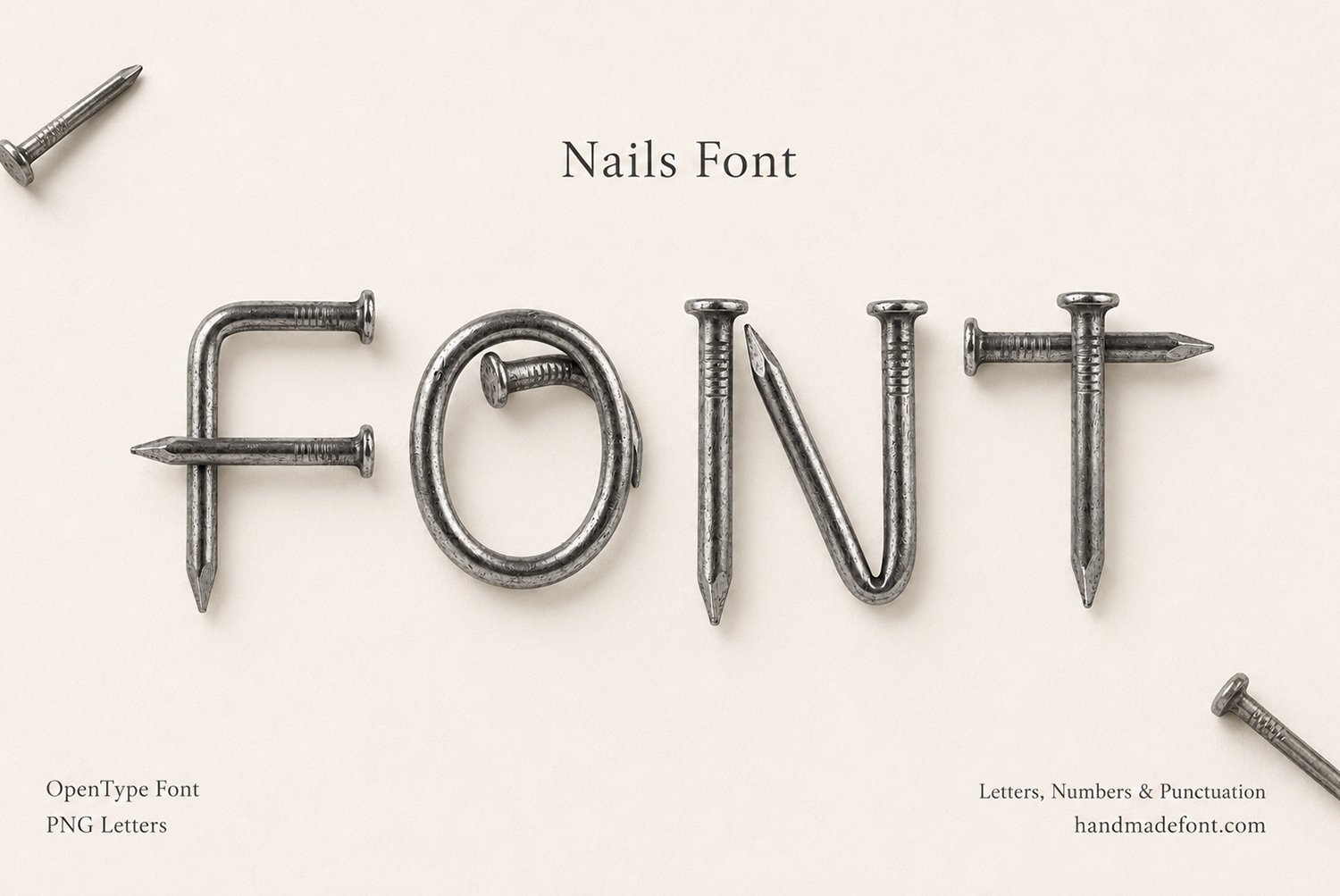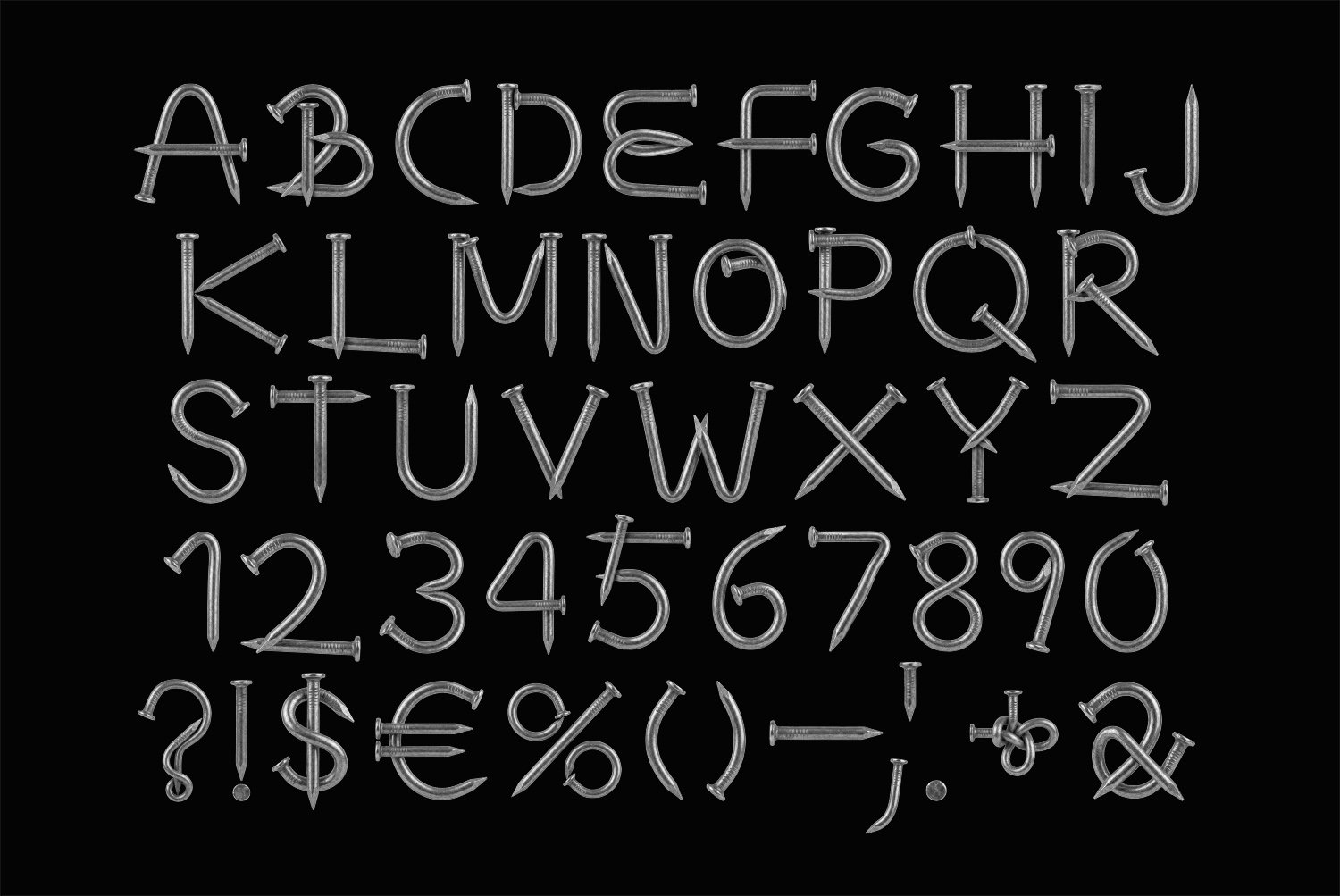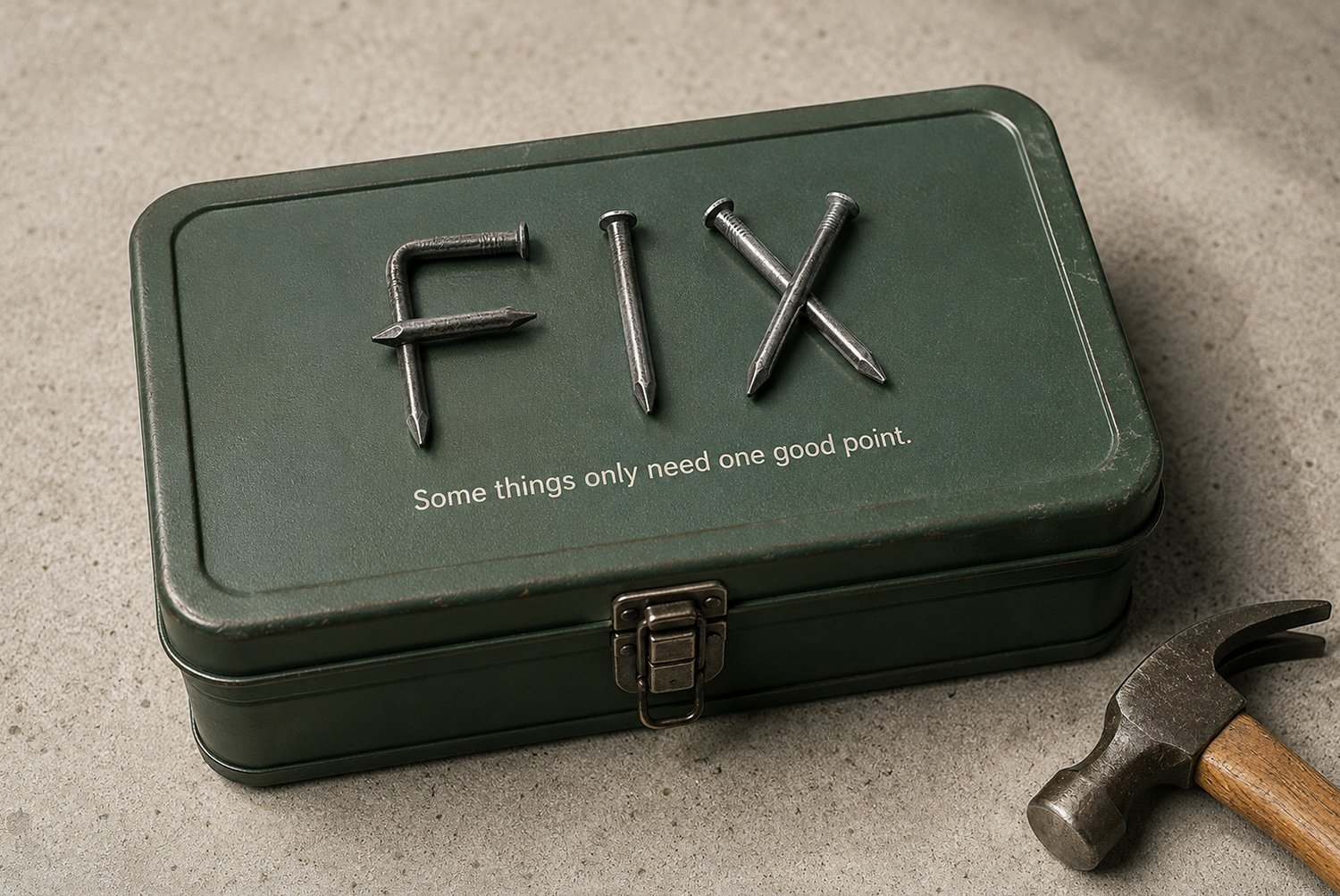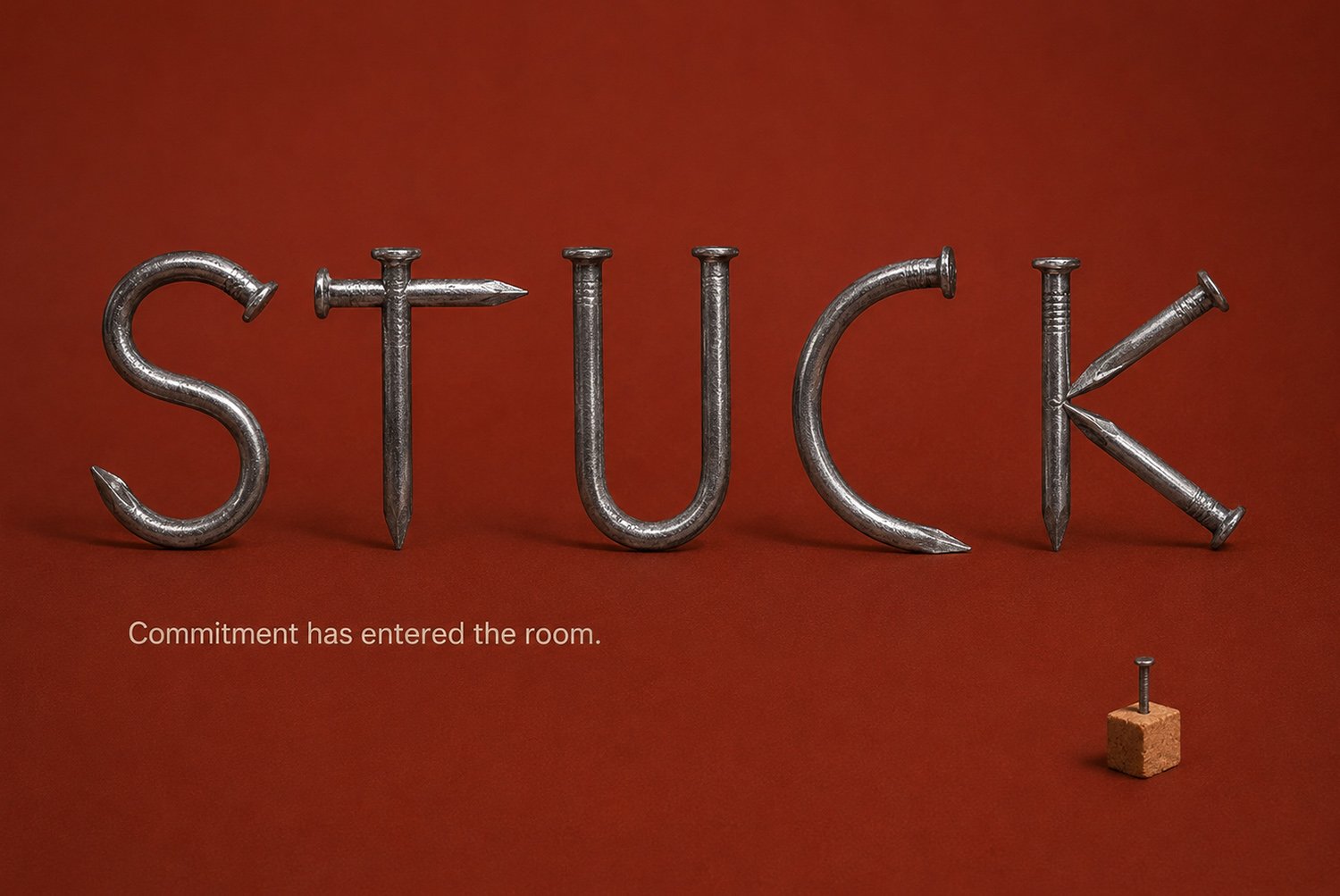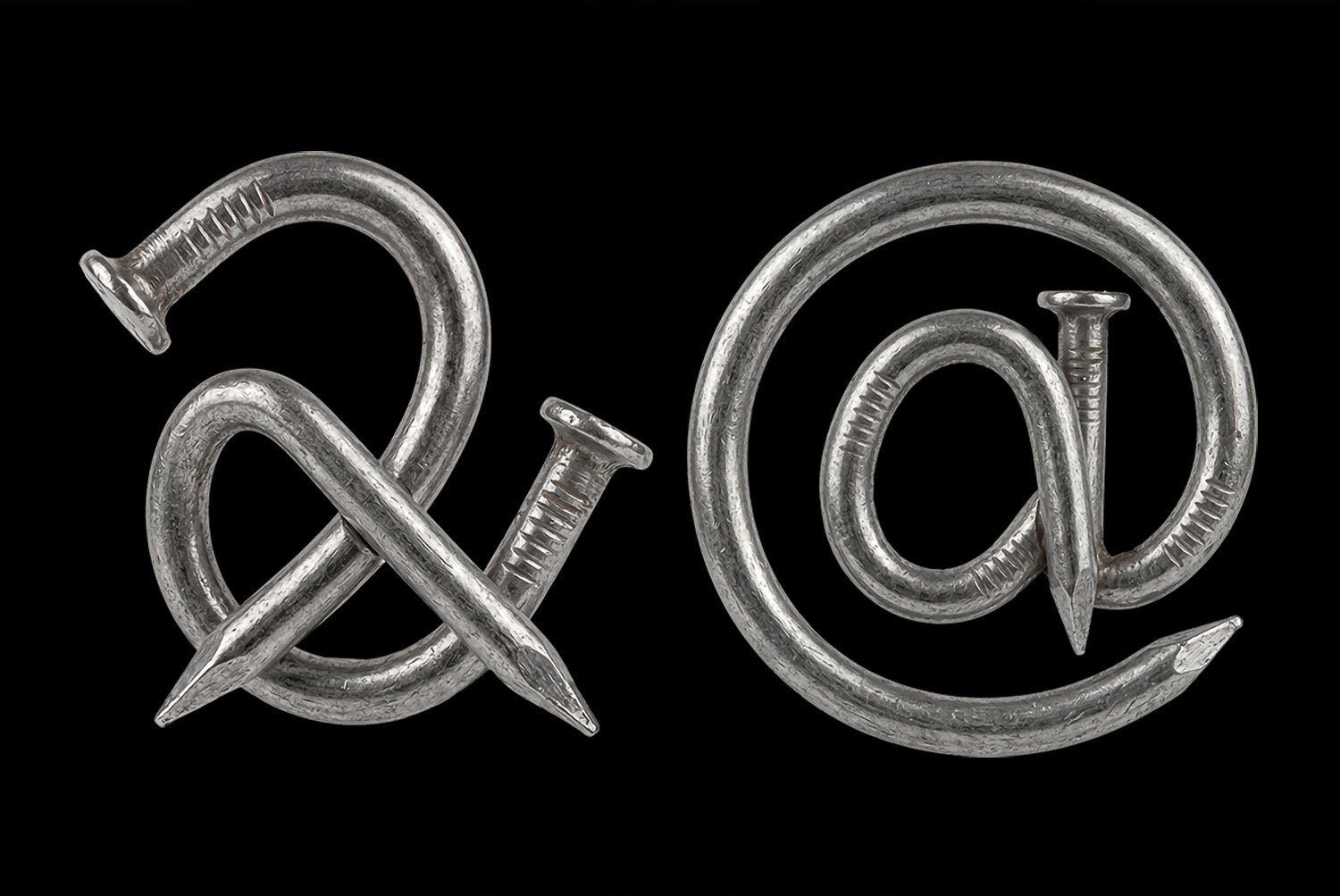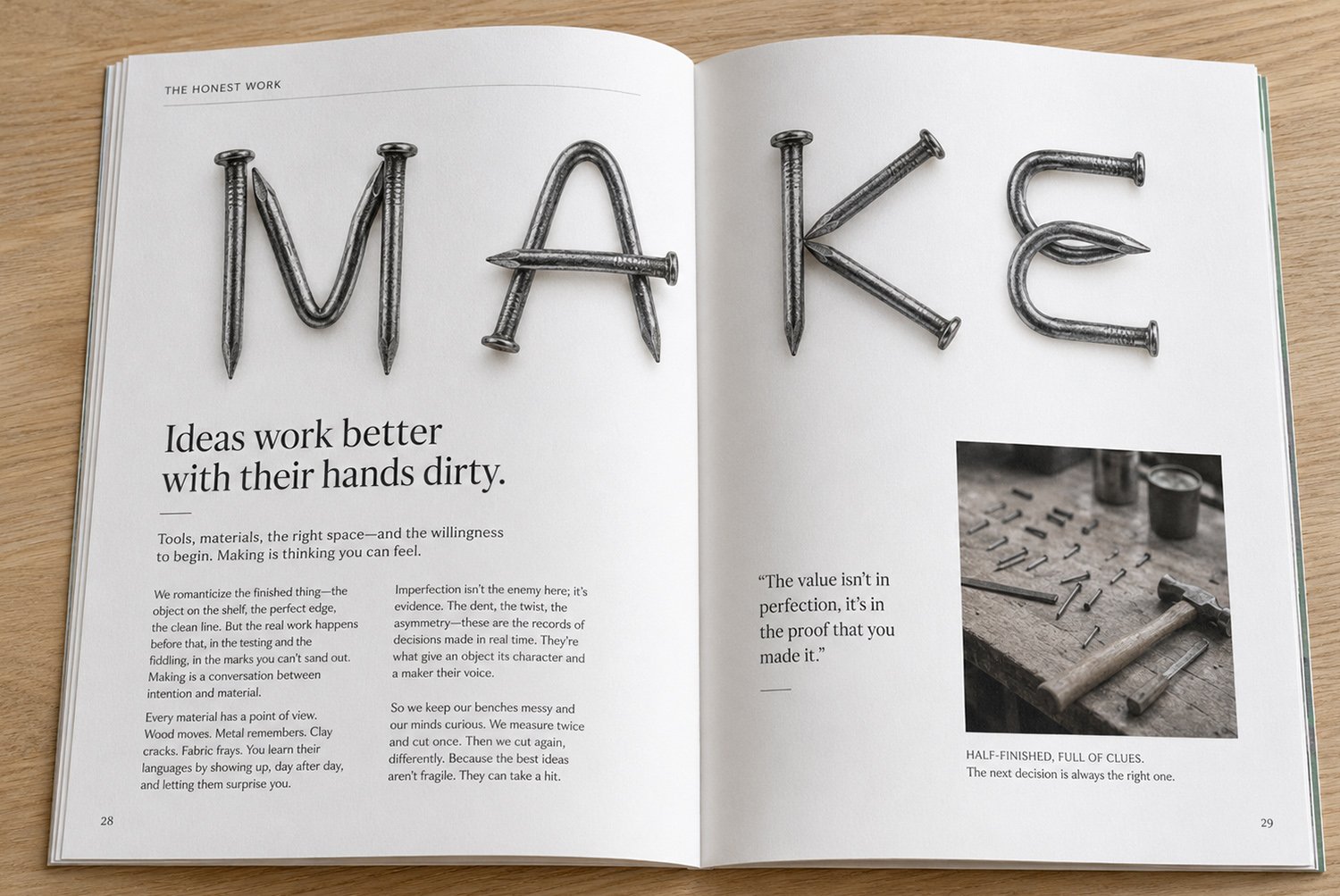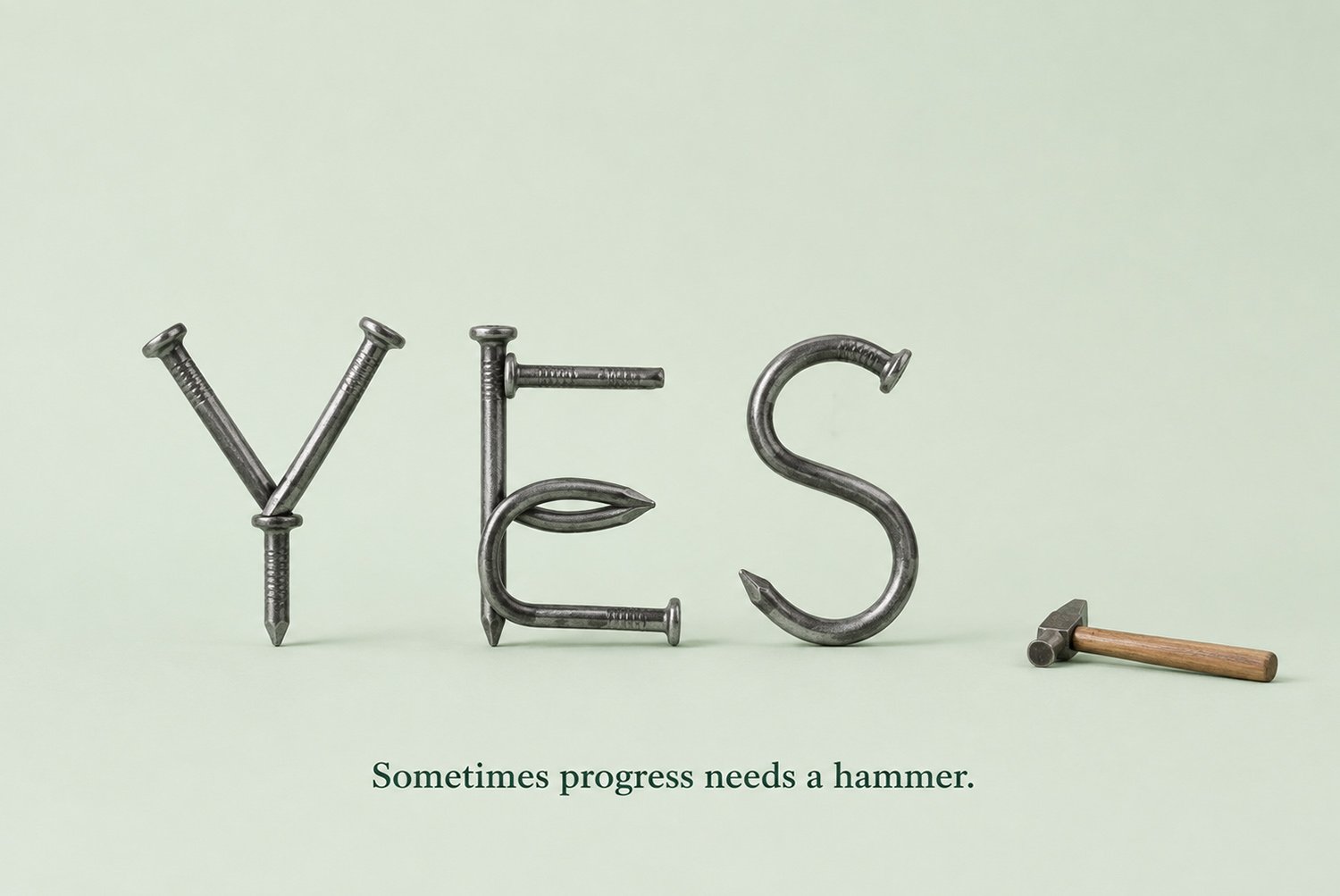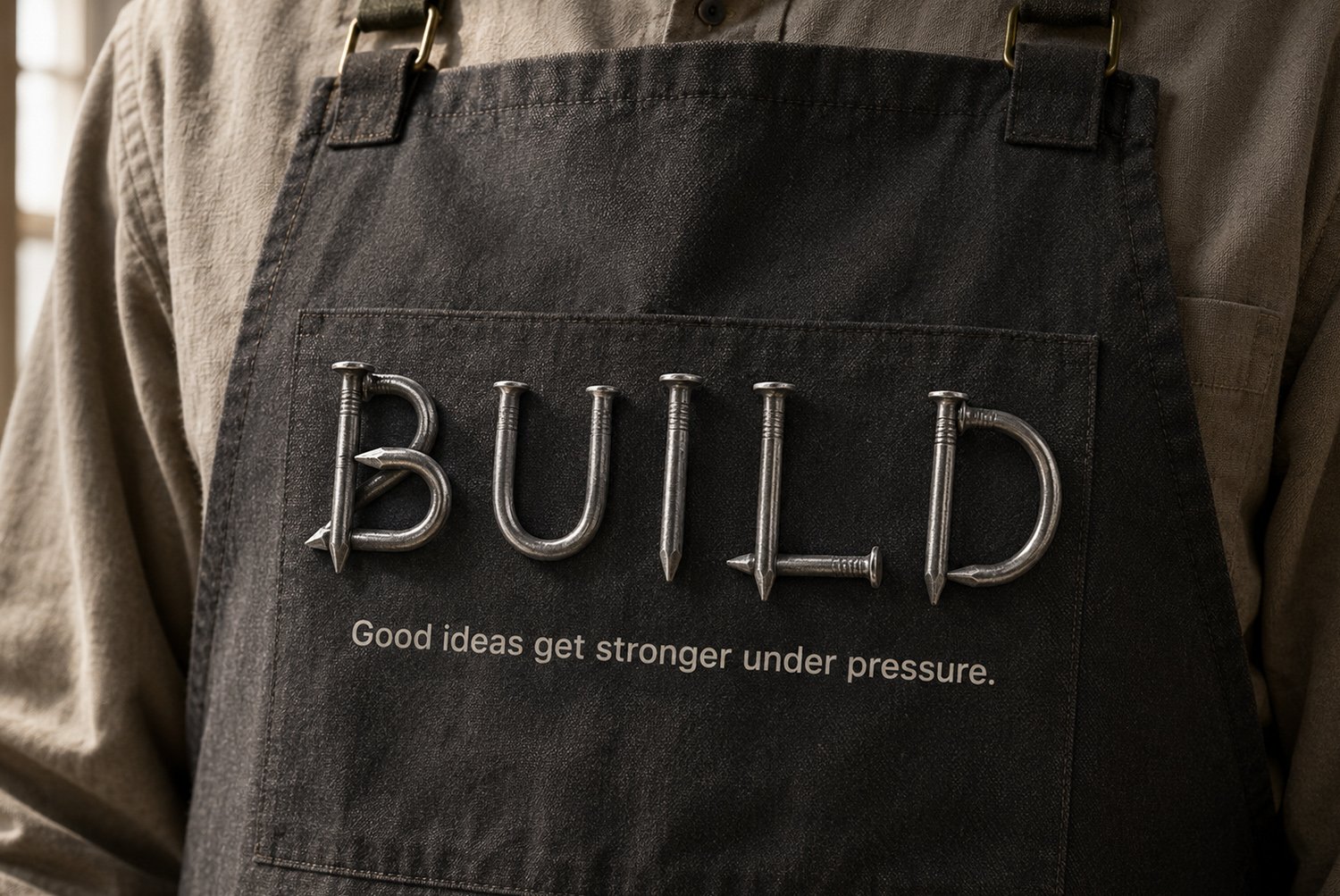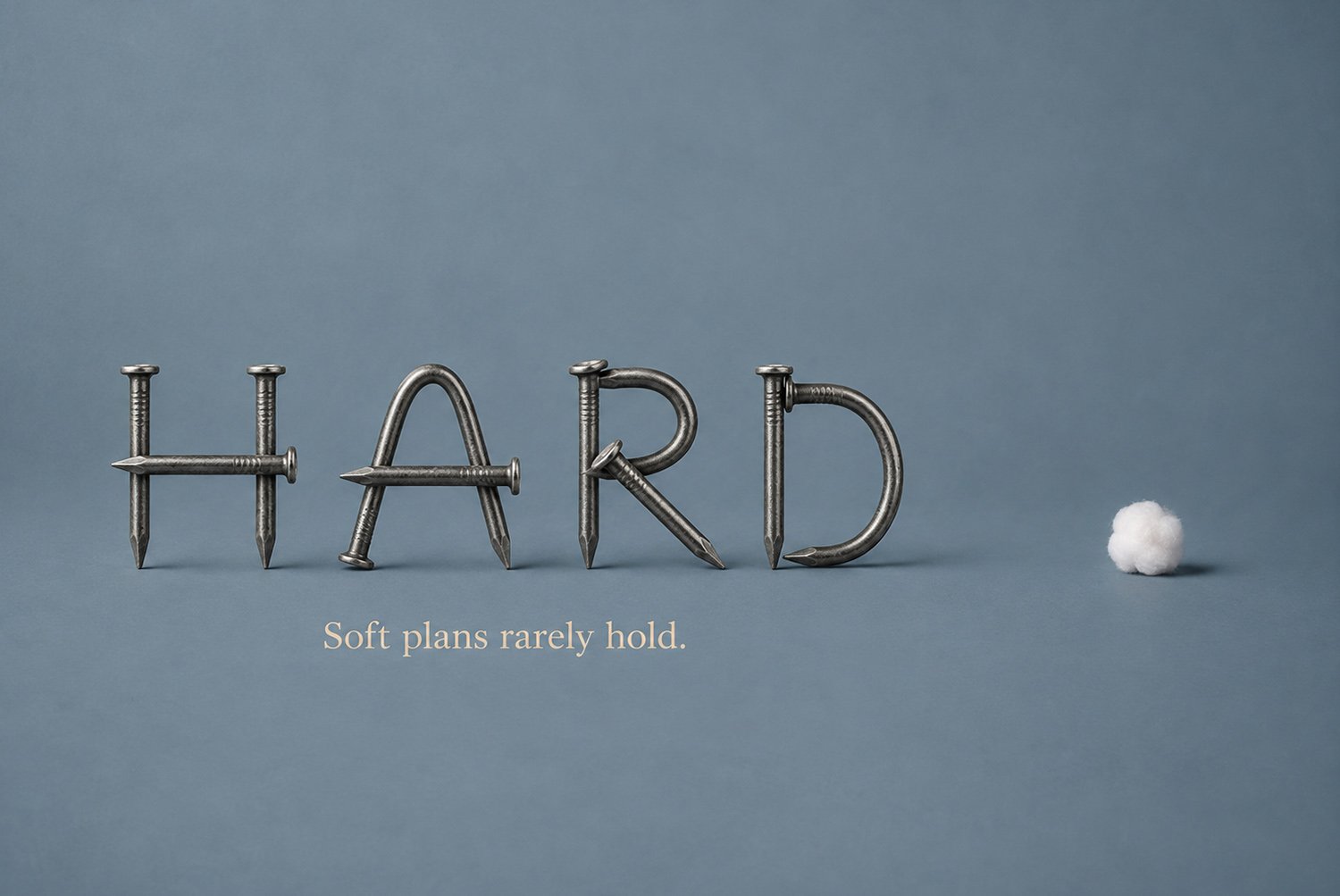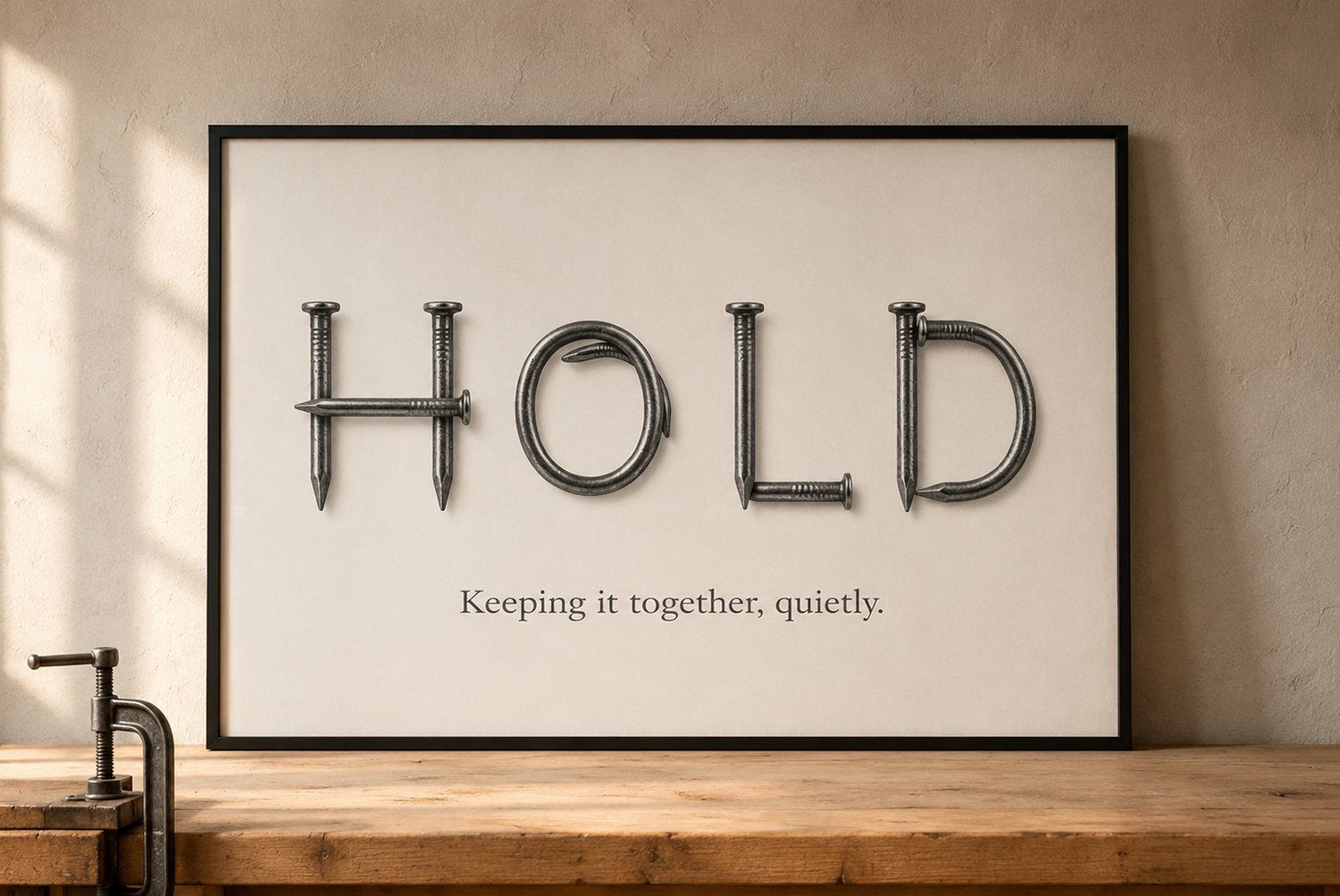
Nails Font
Nails Font is a bold handcrafted display typeface created from realistic, weathered metal nails. Every character combines sharp points, rounded bends, nail heads, and textured steel details for a powerful industrial appearance. It is perfect for construction branding, hardware packaging, workshop posters, DIY projects, rock graphics, horror titles, and strong social-media visuals. The collection includes letters, numbers, and punctuation in an easy-to-use OTF font file. Individual PNG letters with transparent backgrounds are also included for flexible custom layouts and artwork.